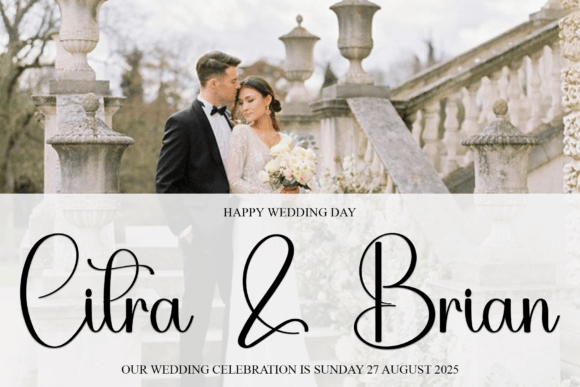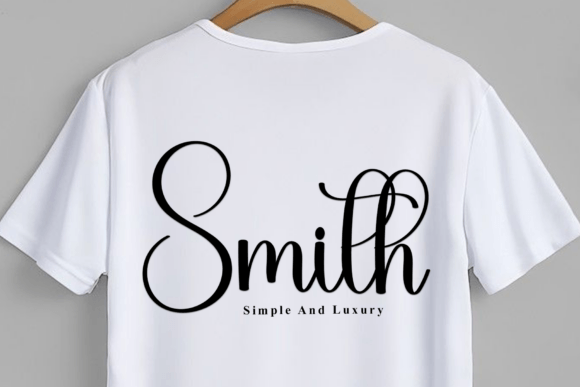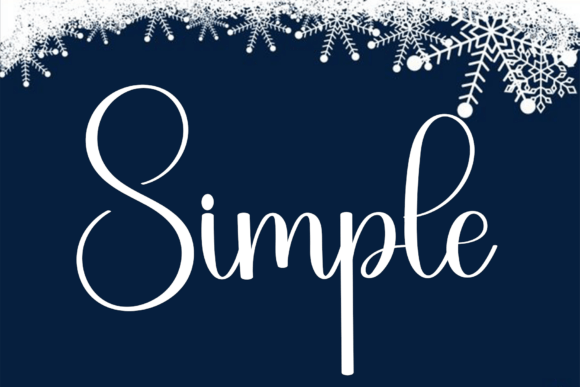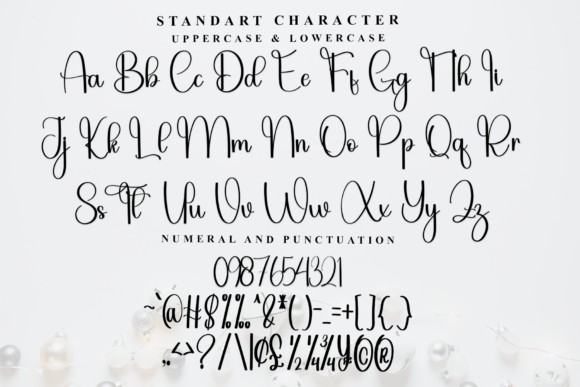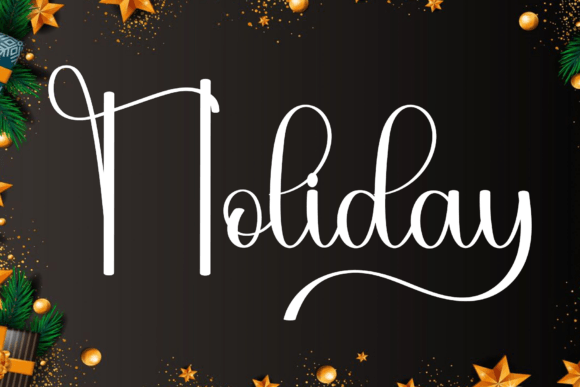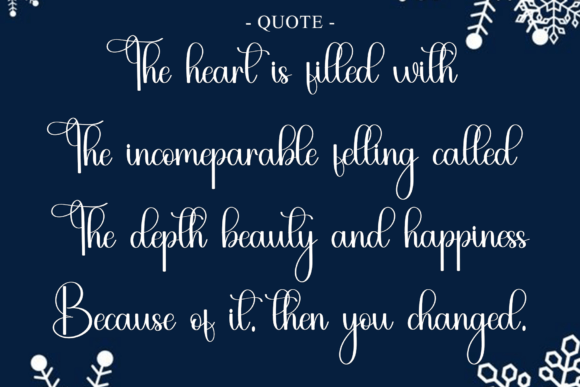
Introducing Beauty Snowman Font: The Perfect Addition to Your Design Collection
Are you tired of using the same old fonts for your personal projects, invitations, and social media graphics? Look no further than the Beauty Snowman Font, a casual and creative font that exudes warmth and friendliness. Its round, playful strokes create a relaxed and approachable feel, perfect for designers and crafters looking to add a fun and unique touch to their designs.
The Charm of Beauty Snowman Font
The Beauty Snowman Font is designed with a charming, hand-drawn aesthetic that sets it apart from other fonts. Its playful strokes and rounded edges create a sense of warmth and approachability, making it perfect for designs that require a personal touch. Whether you’re creating invitations, social media graphics, or personal projects, this font is sure to add a touch of whimsy and fun to your designs.
Key Features of Beauty Snowman Font
- Casual and Creative: The Beauty Snowman Font is designed to be casual and creative, making it perfect for personal projects and designs that require a unique touch.
- Warm and Friendly: The font’s round, playful strokes create a warm and friendly feel, perfect for designs that require a approachable aesthetic.
- Hand-Drawn Aesthetic: The font’s charming, hand-drawn aesthetic adds a fun and unique touch to any design.
The Beauty Snowman Font is perfect for designers and crafters looking to add a personal touch to their designs. Its unique and playful aesthetic makes it ideal for:
- Personal Projects: Use the Beauty Snowman Font to add a personal touch to your personal projects, such as scrapbooking, card making, and journaling.
- Invitations: Create unique and playful invitations for special occasions, such as birthday parties, baby showers, and weddings.
- Social Media Graphics: Use the font to create engaging and playful social media graphics, such as Facebook posts, Instagram stories, and Twitter headers.
Tips for Using Beauty Snowman Font
Here are some tips for using the Beauty Snowman Font in your designs:
- Pair with Other Fonts: Pair the Beauty Snowman Font with other fonts to create a unique and playful aesthetic.
- Use in Combination with Images: Use the font in combination with images to create engaging and visually appealing designs.
- Experiment with Colors: Experiment with different colors to find the perfect combination that matches your design.
The Beauty Snowman Font is a unique and playful font that is perfect for designers and crafters looking to add a personal touch to their designs. Its charming, hand-drawn aesthetic and warm, friendly feel make it ideal for personal projects, invitations, and social media graphics. With its standard PUA Encoded glyphs, this font is compatible with various application engines, making it easy to use in a variety of designs.